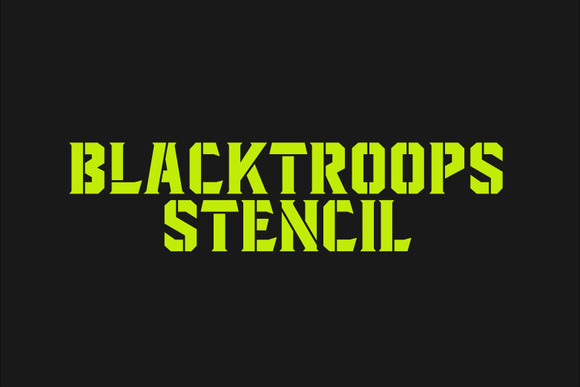
Blacktroops Stencil Font
Welcome to the realm of Blacktroops Stencil Font, a captivating display typeface that emanates the essence of classicism and old-school charm. This font family, meticulously crafted by Mikrojihad Typefounder, is not merely a collection of letters; it's an artistic expression, a creative force that breathes life into your designs.
Blacktroops Stencil Font possesses an undeniable charm that harkens back to a bygone era, evoking nostalgia and a sense of timeless elegance. Its bold, confident strokes and distinct stencil-like effect create a visual impact that commands attention, making it the perfect choice for headlines, posters, logos, and packaging designs.
Whether you're a seasoned designer or just starting out, Blacktroops Stencil Font is a versatile tool that will elevate your projects to new heights. Its crisp, clean lines and sharp angles bring a touch of sophistication to any design, while its unique character adds a layer of intrigue and personality.
With Blacktroops Stencil Font, you can effortlessly create designs that speak volumes. Its bold presence ensures maximum impact, capturing the attention of your audience and leaving a lasting impression. Unleash your creativity and let the Blacktroops Stencil Font guide you towards design excellence.